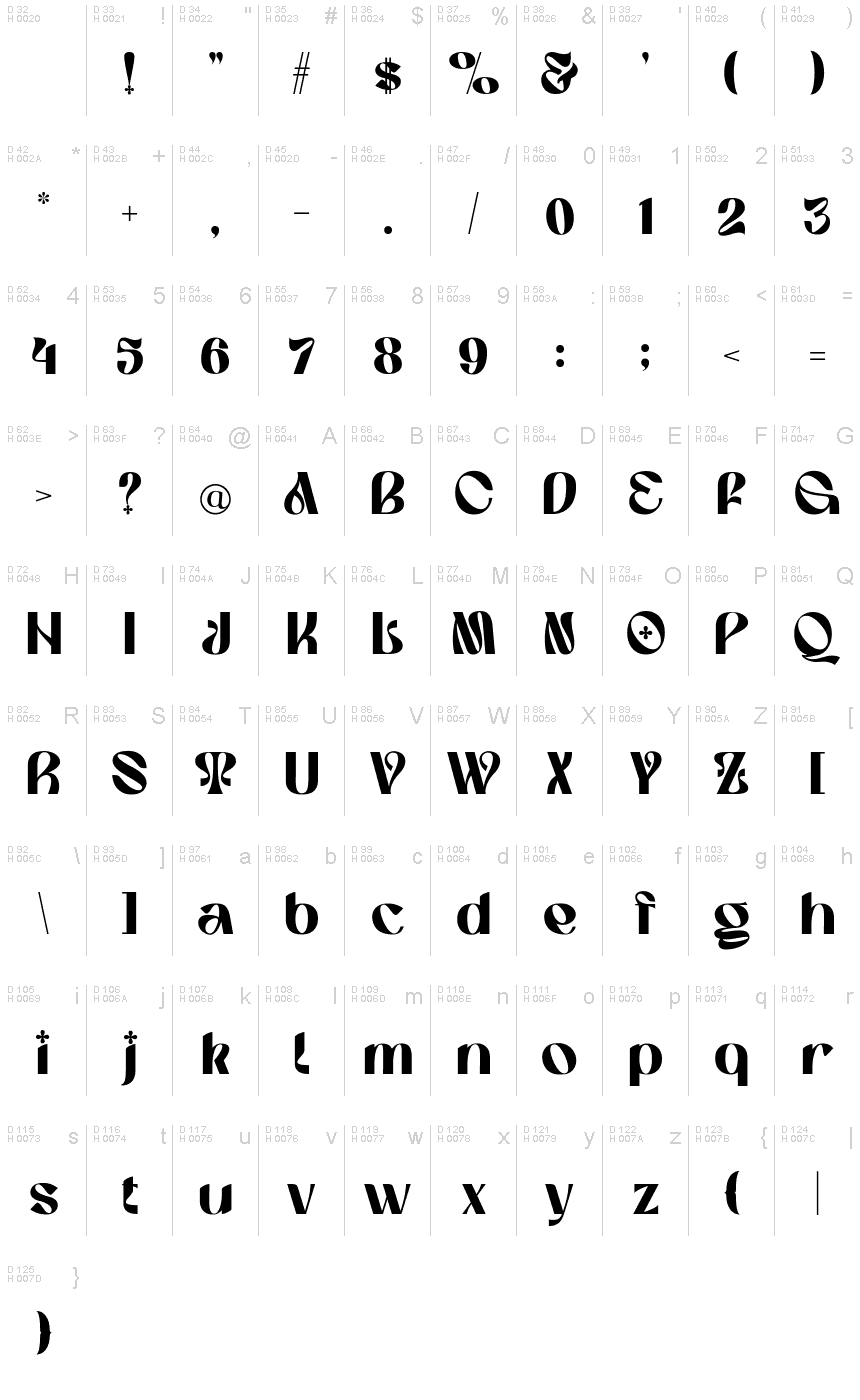
Martin Demo Regular
Dive into the dynamic world of typography with Martin, a creation by TypeClassHeroes that exudes a groovy aura. This display font, characterized by its semi-bold weight and semi-expanded width, brings a retro vibe with a modern twist. Its sweeping curves and playful shapes give it an aesthetic appeal that is both striking and approachable.
With Martin's distinctive style, your creative projects can capture the essence of an era known for its bold expressions while maintaining readability. Ideal for headlines, posters, branding, and more; this font offers designers the versatility to make a statement that's both nostalgic and fresh.
Embrace the fluidity of Martin to add personality to your designs without sacrificing functionality. Whether you're aiming for something chic or whimsical, this font has the potential to elevate your visual narrative with flair.